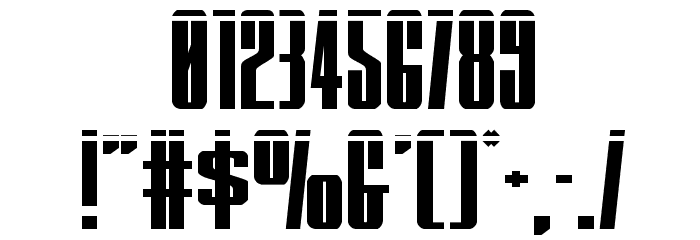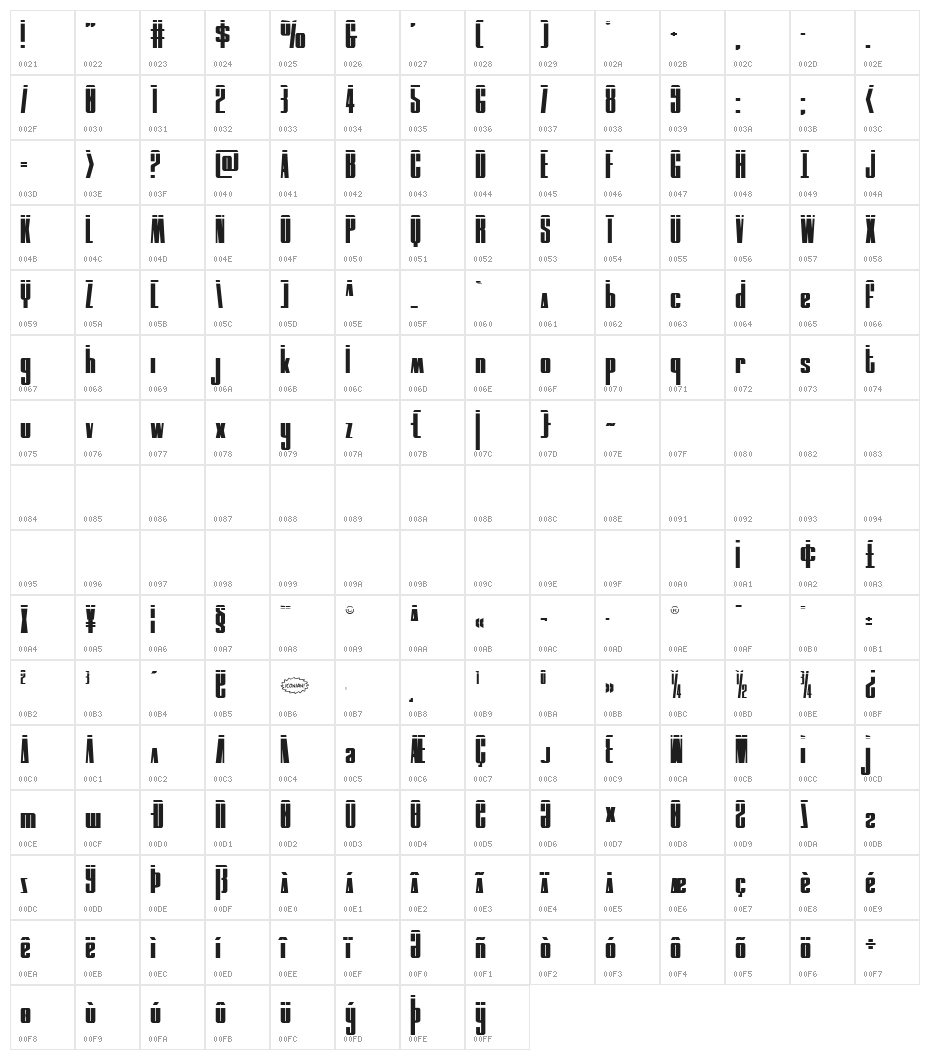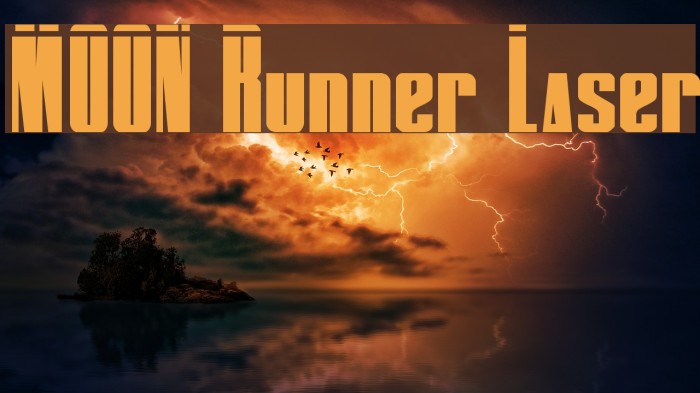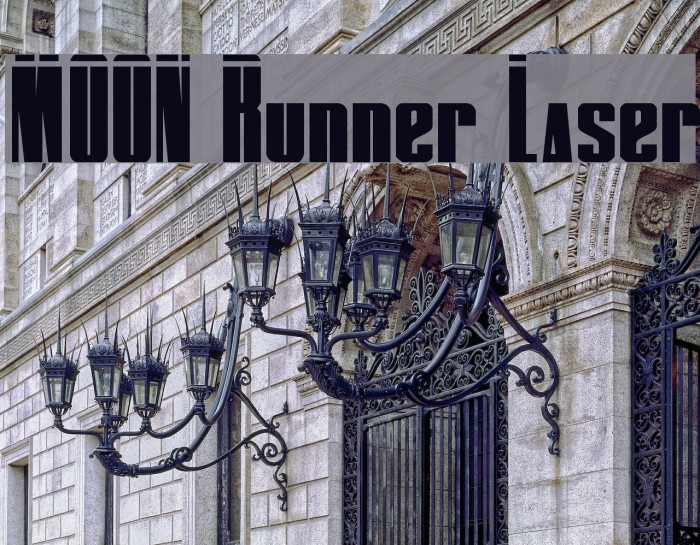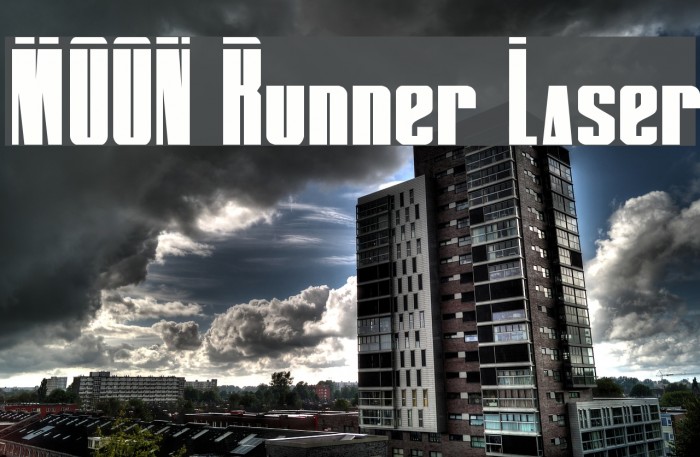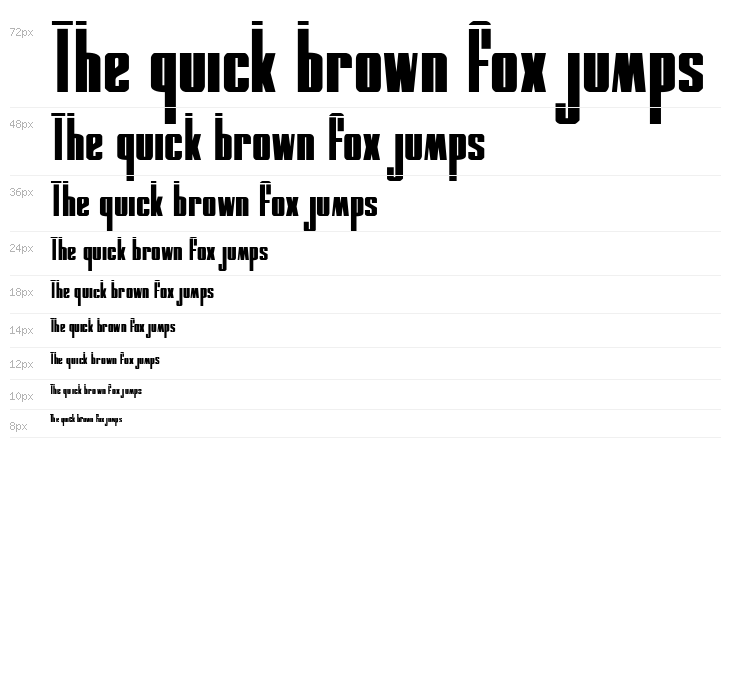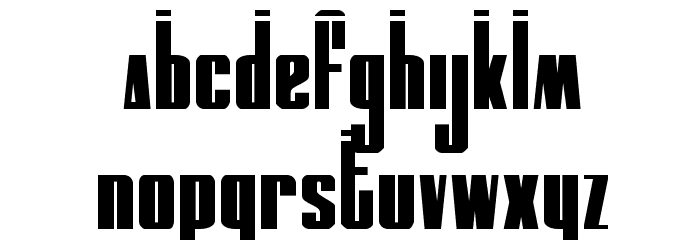
MOON Runner Laser Font
MOON Runner Laser Description
This font features a bold and futuristic design with a strong geometric influence. The uppercase letters are tall and narrow, with sharp angles and a distinct stencil-like appearance. The lowercase letters maintain the same angular style, creating a cohesive look across the typeface. Numbers and special characters follow the same design principles, ensuring consistency throughout. The font's unique style makes it stand out, with a modern and edgy aesthetic that is perfect for attention-grabbing designs.
Overall StyleFuturistic
Proposed ProjectsIdeal for sci-fi themed posters, video game titles, tech branding, and futuristic event flyers.